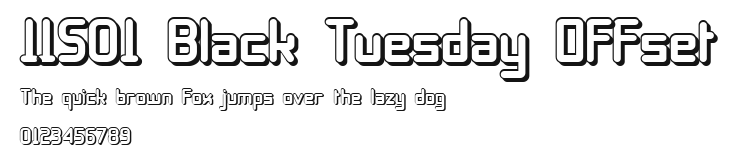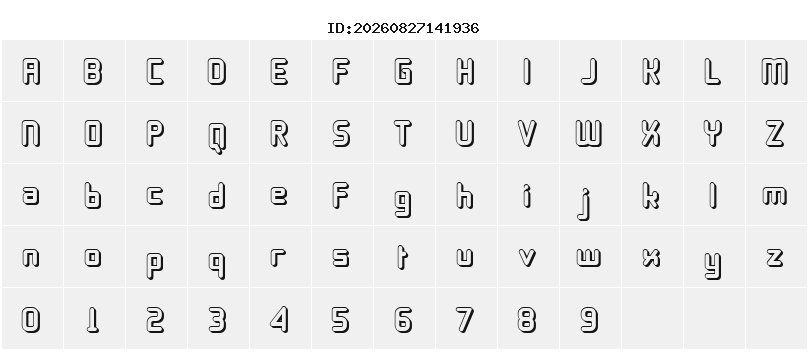
11S01 Black Tuesday Offset Preview
• Font Name: 11S01 Black Tuesday Offset
• Full Font Name: 11S01 Black Tuesday Offset
About 11S01 Black Tuesday Offset.ttf
11S01 Black Tuesday Offset.ttf is a modern, elegant sans-serif font designed for ultimate readability and visual harmony. Perfect for branding, headlines, web design, and print materials.